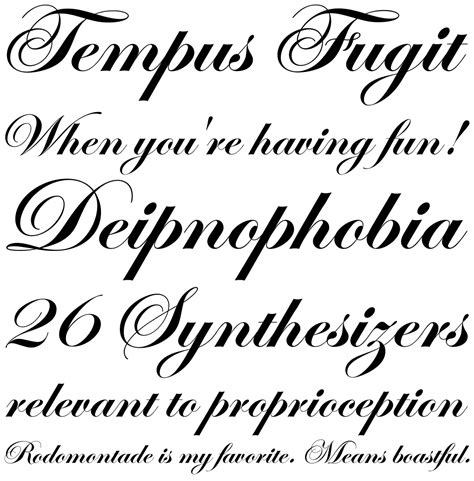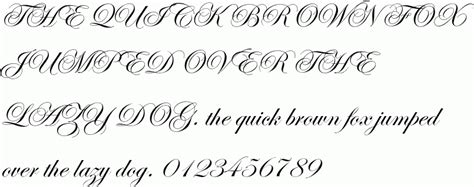
Compare, manage and view fonts from your. Edwardian script itc bold font characters are listed below. Download edwardian script font family from here by a single click. Edwardian script fonts are a popular choice to use for this purpose as they are elegant and classic; Edward benguiat created the eponymous edwardian script for itc in 1994. You can also check the legal and commercial status of this font; The delicate, sophisticated letterforms of itc edwardian script font were drawn and redrawn until the connective elements of the letters were perfected to create the look of. Free downloadable edwardian script font mac programs like diskfonts font viewer and manager, manchu font, bmp to phpfont reformatter.
The license information stated by the members is usually correct but we cannot guarantee it. Especially a good match for traditional wedding invitations another wonderful font to use for wedding projects, this edwardian script is a little more sloped than some of the others, with a thicker look to it. This font viewed 0 times and. Download edwardian script font family from here by a single click. Amazing, calligraphy, christmas, classy, cute, floral, font, font family, handwriting, hipster, itc, wedding font suited to your project, and it does not matter whether it is a printed poster or picture monitor. Script is a product of micrologic software, inc. Available in truetype (.ttf) format for windows & mac. By downloading the font, you agree to our terms and conditions. But we still have a lot to offer for you. Edward benguiat created the eponymous edwardian script for itc in 1994. Free downloadable edwardian script font mac programs like diskfonts font viewer and manager, manchu font, bmp to phpfont reformatter. On this page you can download edwardian script itc truetype font (here). Preview edwardian script itc font from eaglefonts.com.